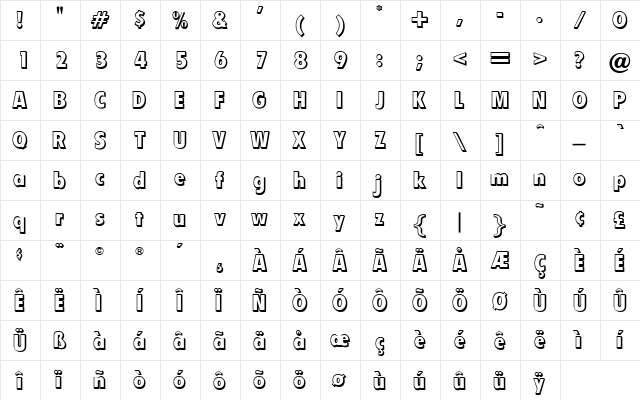
OPTIVanDyke Regular
Design Context for OPTIVanDyke Typeface
OPTIVanDyke is a composed and adaptable typeface that performs quietly and consistently across a wide range of design contexts.
Pro Tip: Use OPTIVanDyke in both headline and body roles to test its range before committing to a single application.